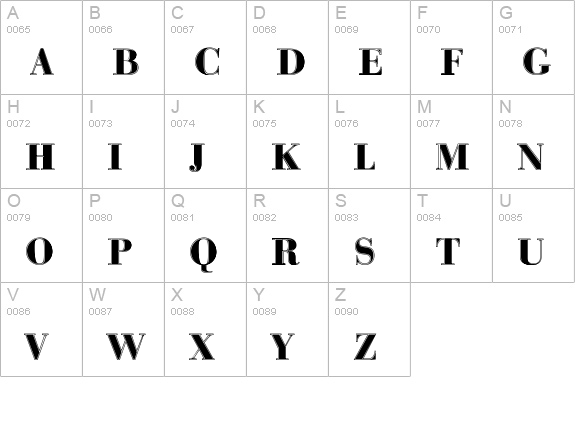
Bauer Bodoni D Bold In1 Font Details
Bauer Bodoni D Bold In1 is a strong, high-contrast variant in the Bauer typeface family \xE2\x80\x94 well suited to headlines, attention-grabbing titles, and strong calls-to-action.
Bauer Bodoni D Bold In1 font is a timeless and elegant typeface that exudes sophistication and class. With its bold and striking design, it commands attention and makes a statement in any project or design. The sharp serifs and clean lines of Bauer Bodoni D Bold In1 font convey a sense of precision and modernity, while still paying homage to the traditional Bodoni style. This font is perfect for headlines, titles, and any text that needs to make a bold impact. Whether you are designing a poster, logo, or branding materials, Bauer Bodoni D Bold In1 font will elevate your work and give it a touch of luxury. Best of all, Bauer Bodoni D Bold In1 font is freely available to download at FontsMarket.com. Take advantage of this opportunity to enhance your designs with this exquisite typeface and make a lasting impression on your audience.